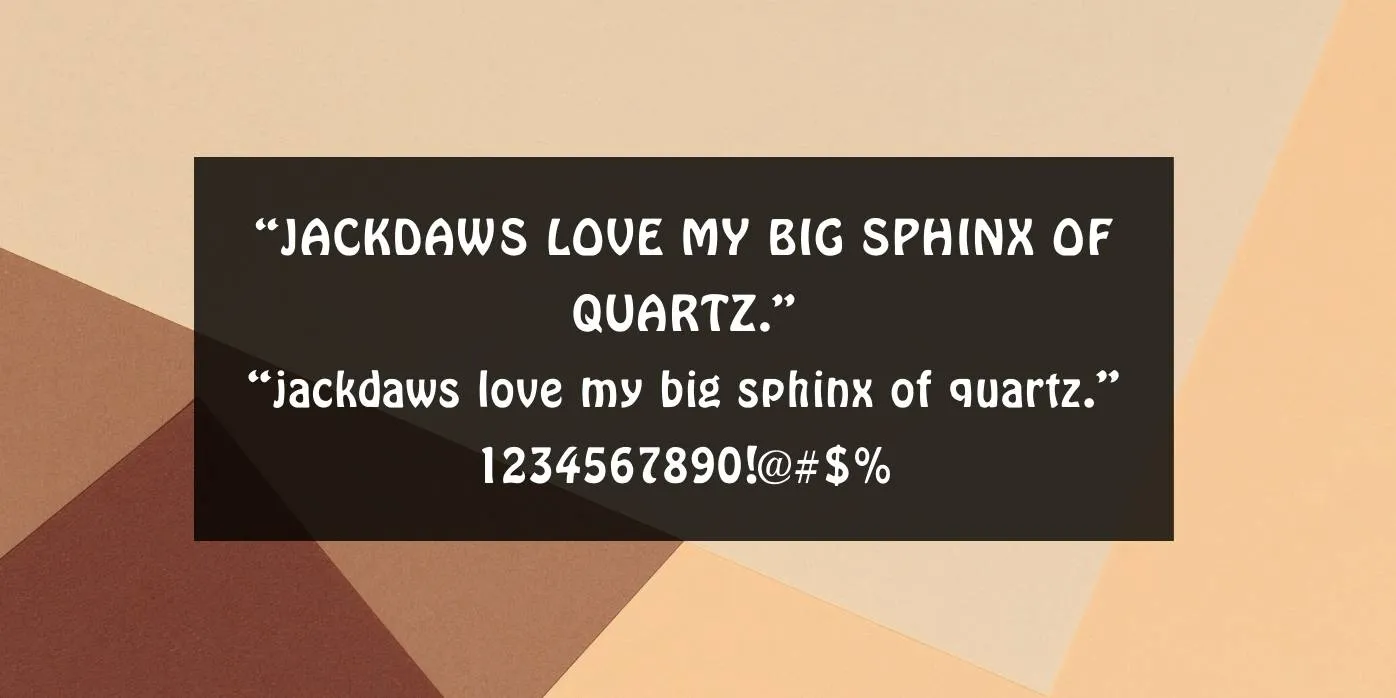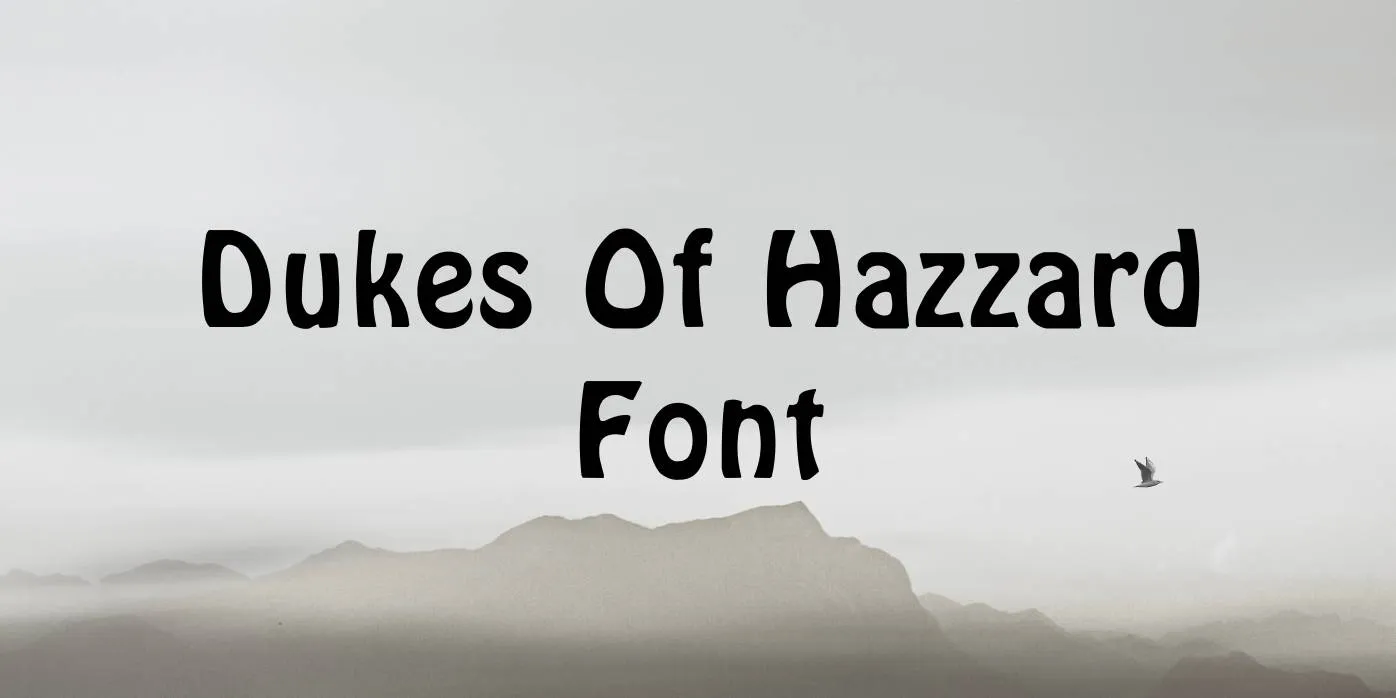
Dukes of Hazzard Font
In this article, we present a modern typeface known as Dukes of Hazzard Font. This typeface belongs to the display family.  And it was created by Tom Rickner. Also, this typeface is free for personal and commercial use. Dukes of Hazzard Typeface is a fun and unique display Typeface inspired by the classic American TV show Dukes of Hazzard.
The font features uppercase letters, numbers, and special characters. It’s perfect for creating retro-style designs. This typeface is perfect for Canva, and Adobe Photoshop. This awesome typeface includes different classic styles like Regular, Bold, Outline, and Inline.